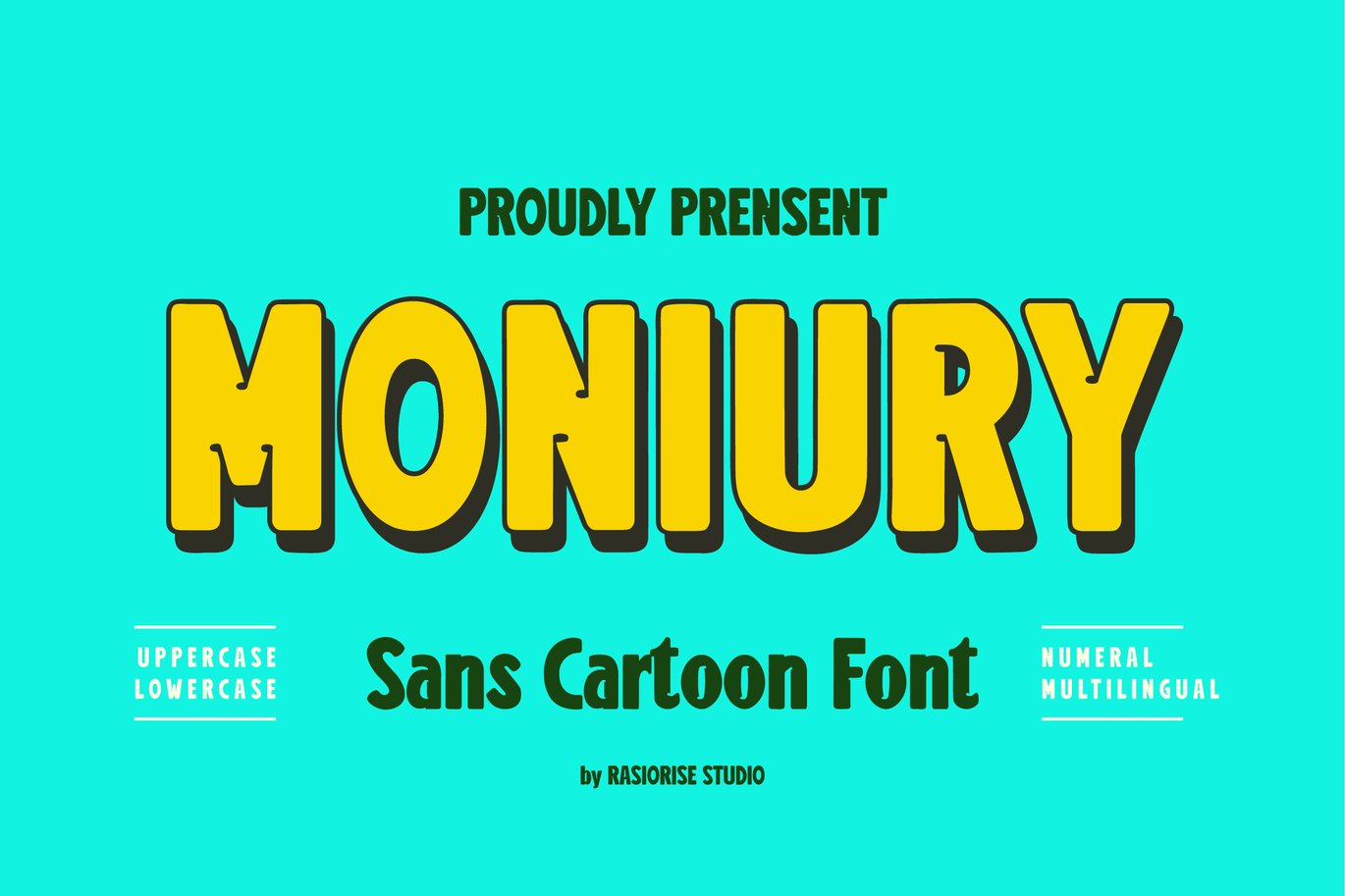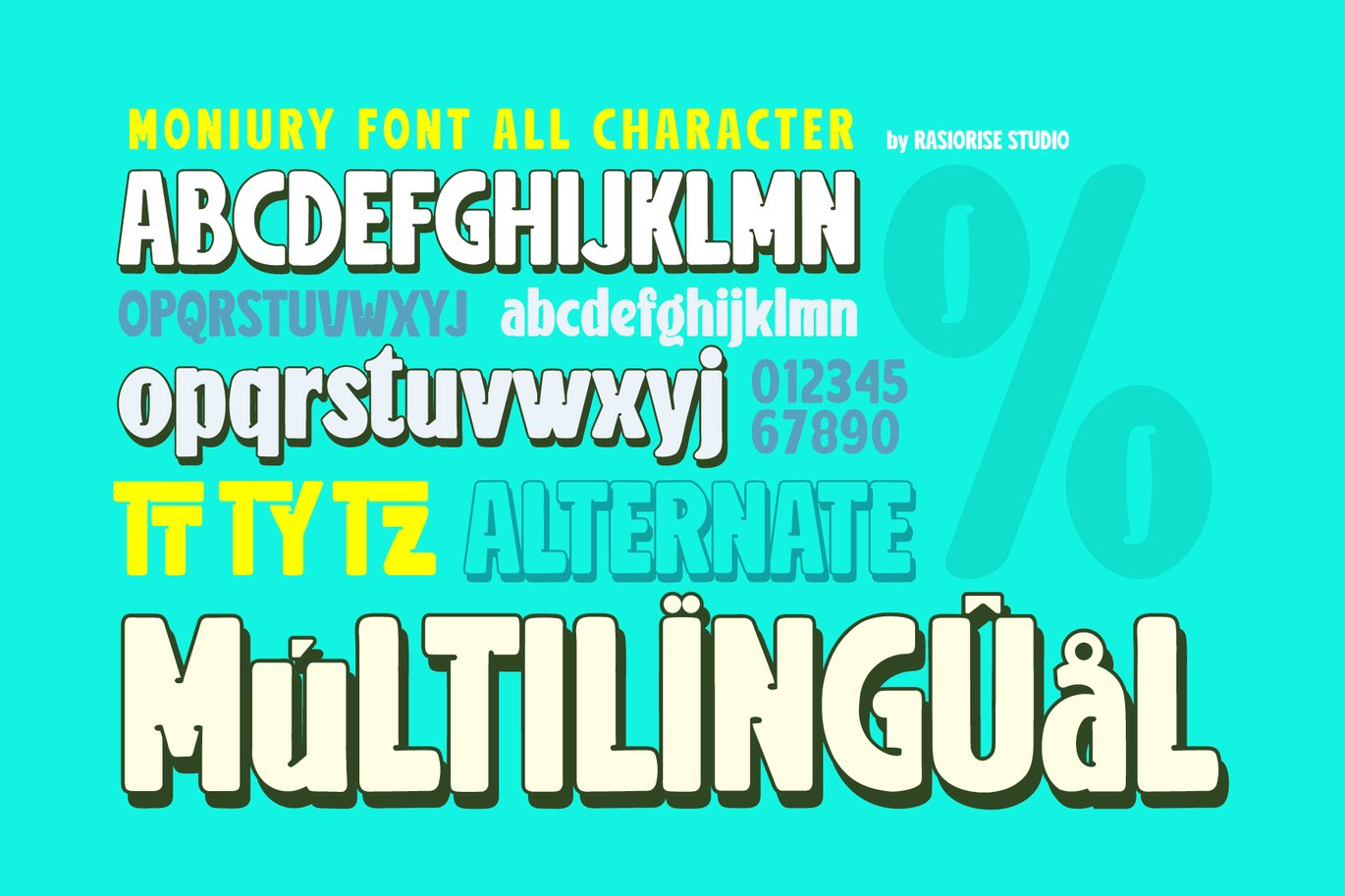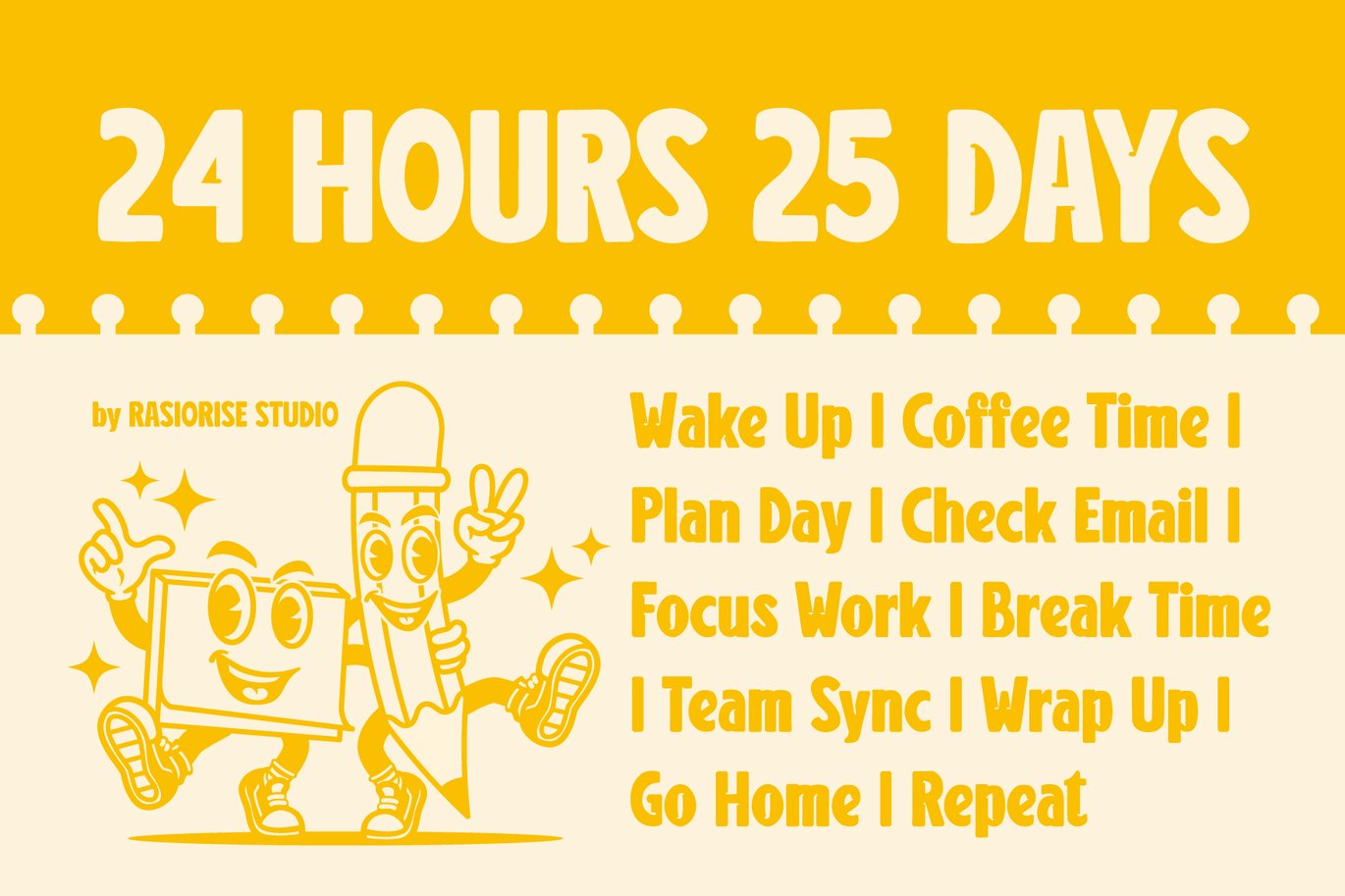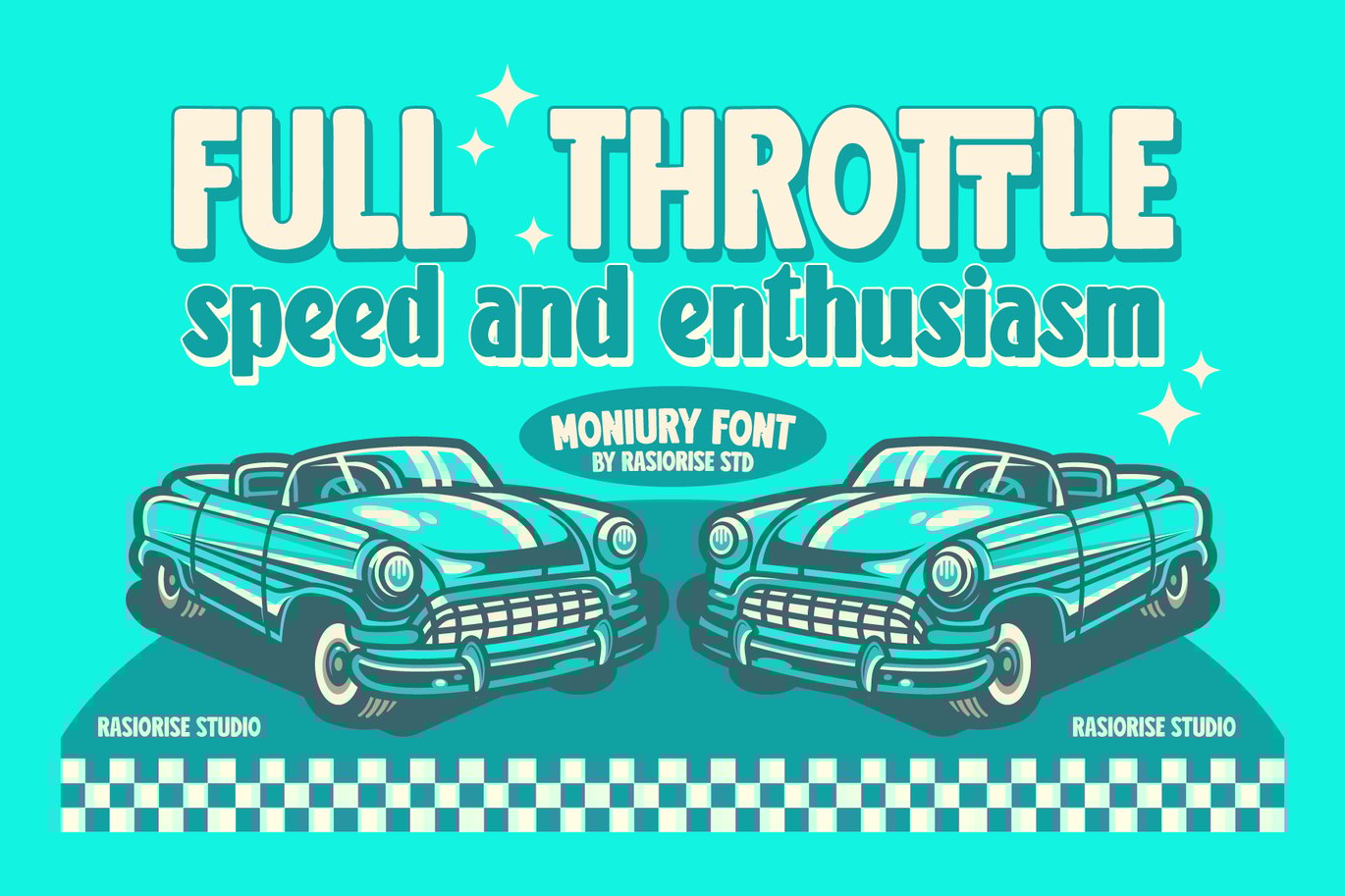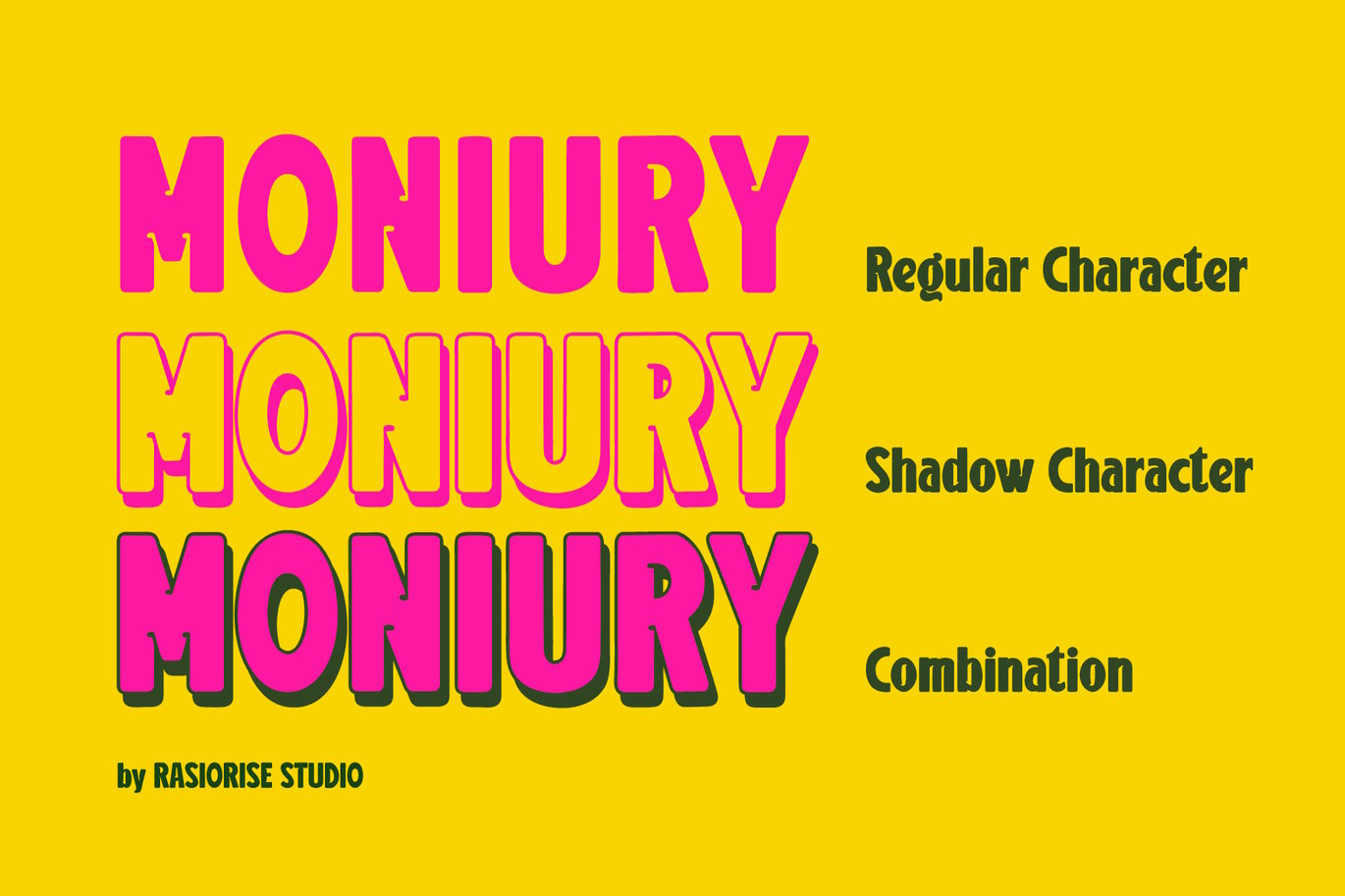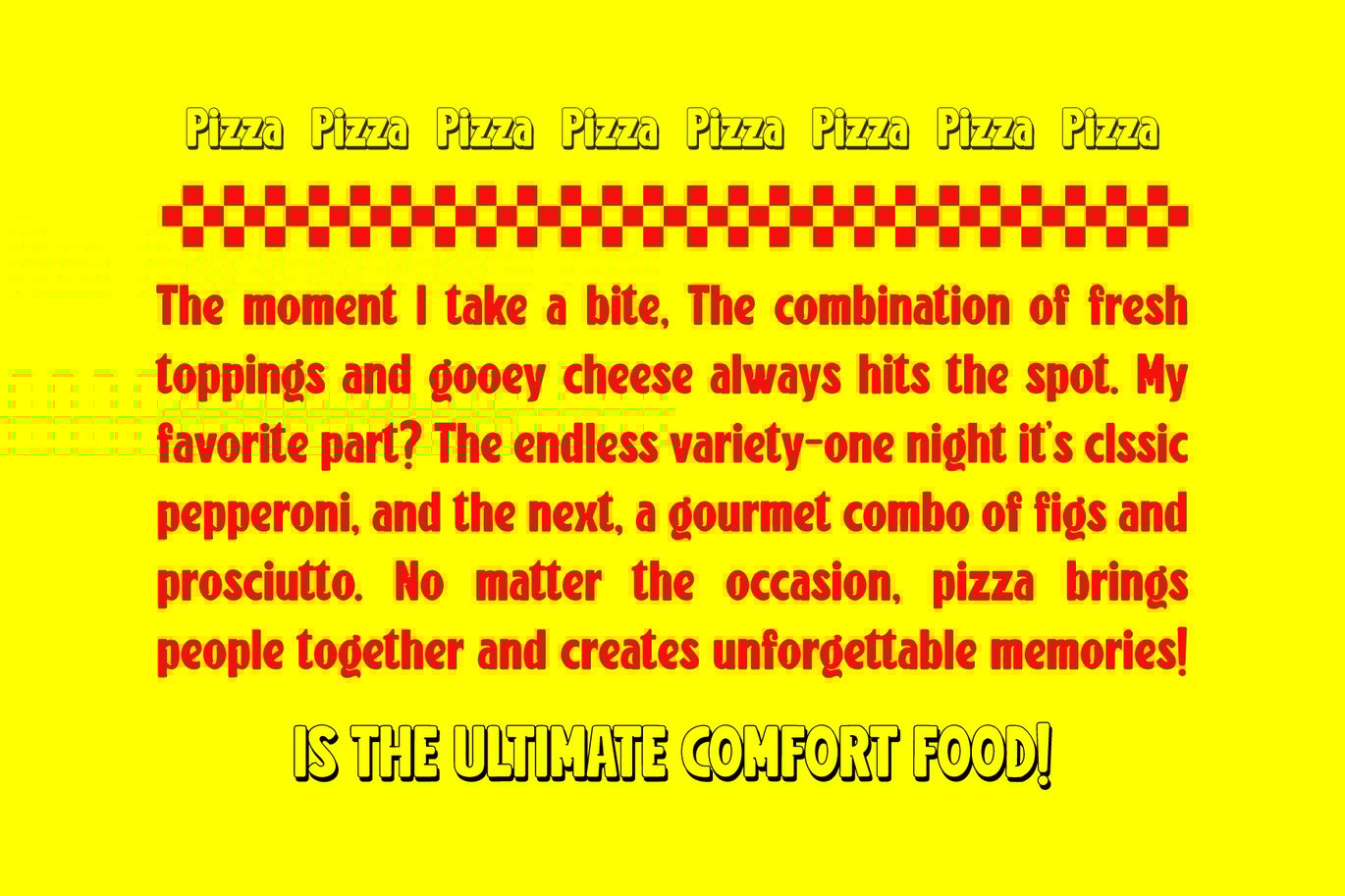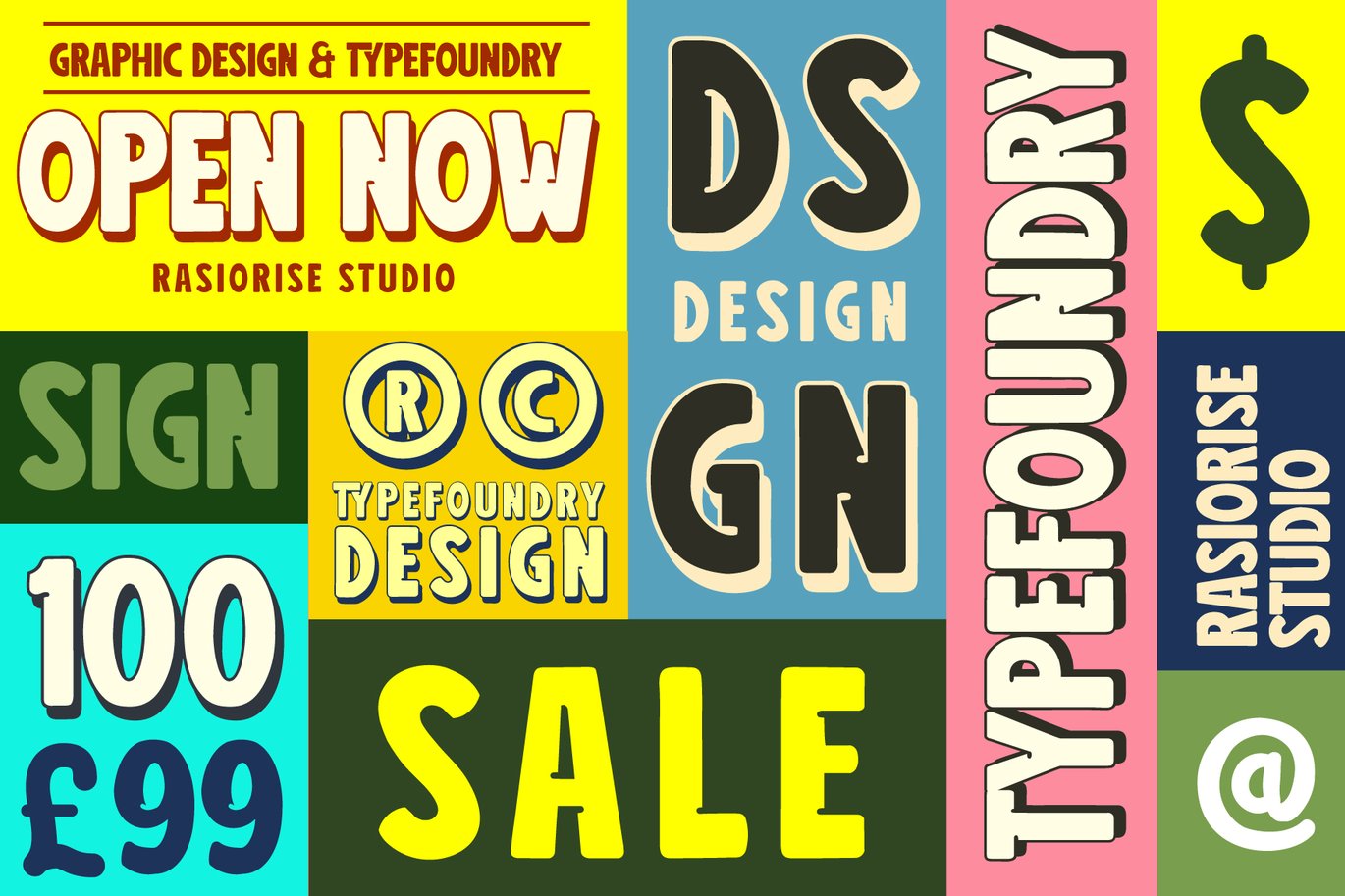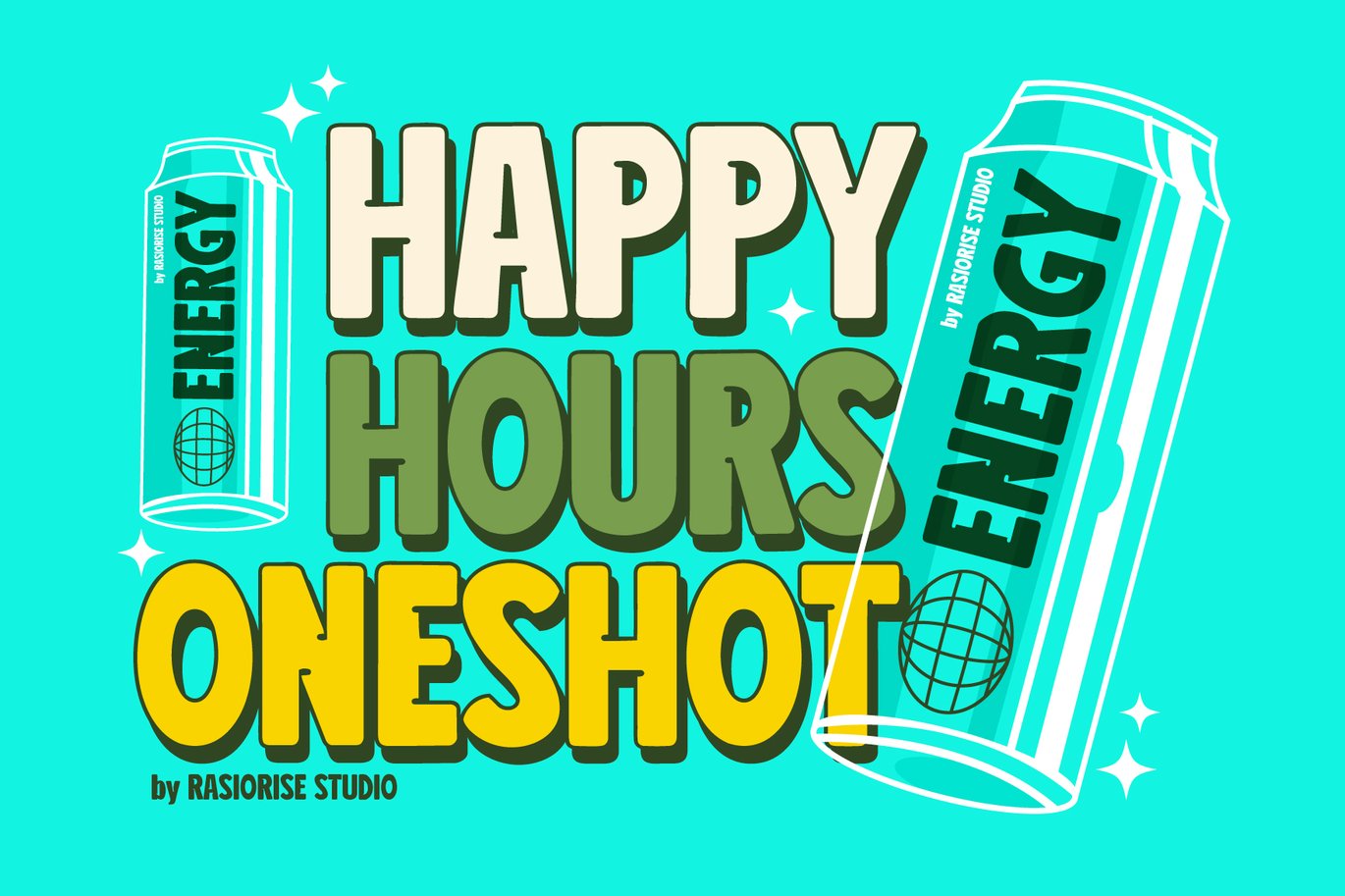
Moniury – Sans Cartoon Font
Presenting Moniury – Sans Cartoon Font by Rasiorise Studio
Moniury Font has been released for those of you who are looking for a Retro Bold San-serif font, The font is inspired by the retro sans-serif classic font style with a few combine to Montserrat Roman Style turn them into a bit of a Playful and Retro style. Feature little rounded edges and cheerful letterforms, making them easy to read while injecting personality into your designs. Unleash your creativity with Moniury Cartoon Sans Fonts, perfect for adding a playful touch to any project!. This font is Reguler and Shadow character style, included as the Uppercase and Lowercase regular character, numeral and multilingual support.
Moniury Font very suitable for Logotype, Book Cover, Children Book, Comic Text, Poster, Merchandise, Packaging Label, Badge/Emblem Logo and much more.
- Numeral, Punctuation & Symbol
- Regular Character Font
- Shadow Character Font